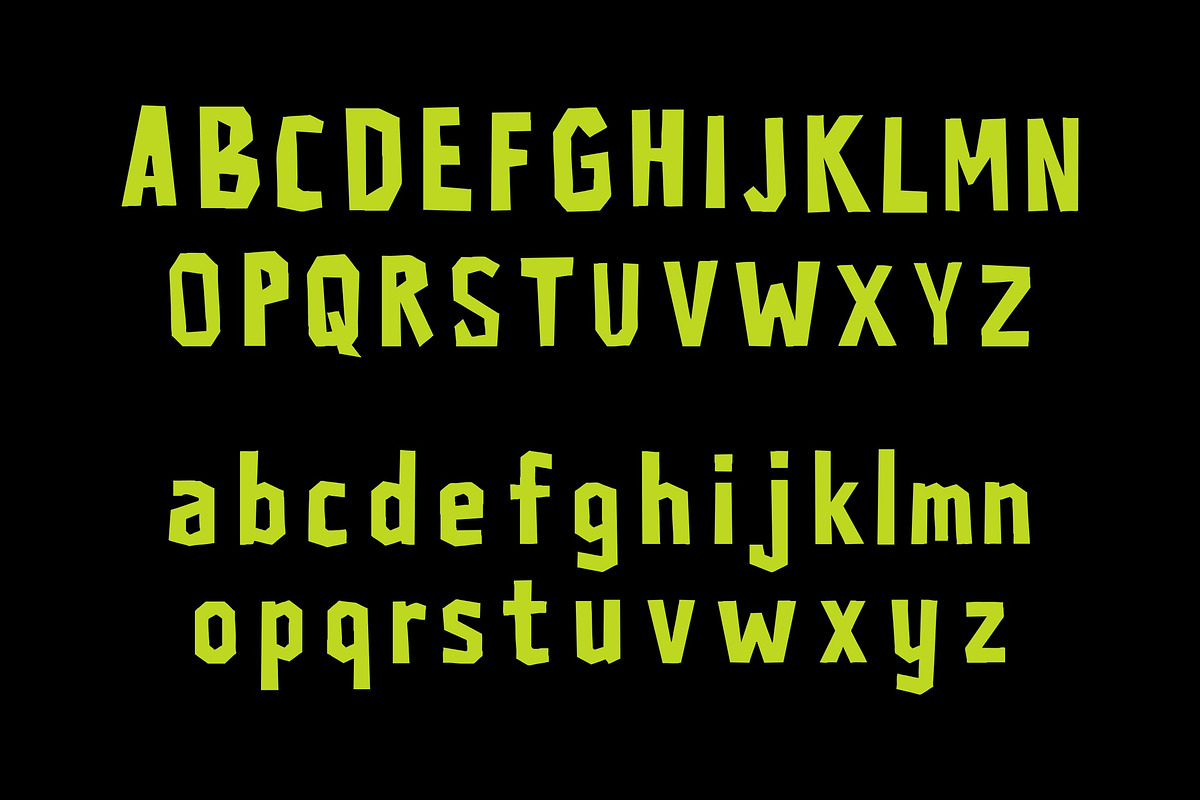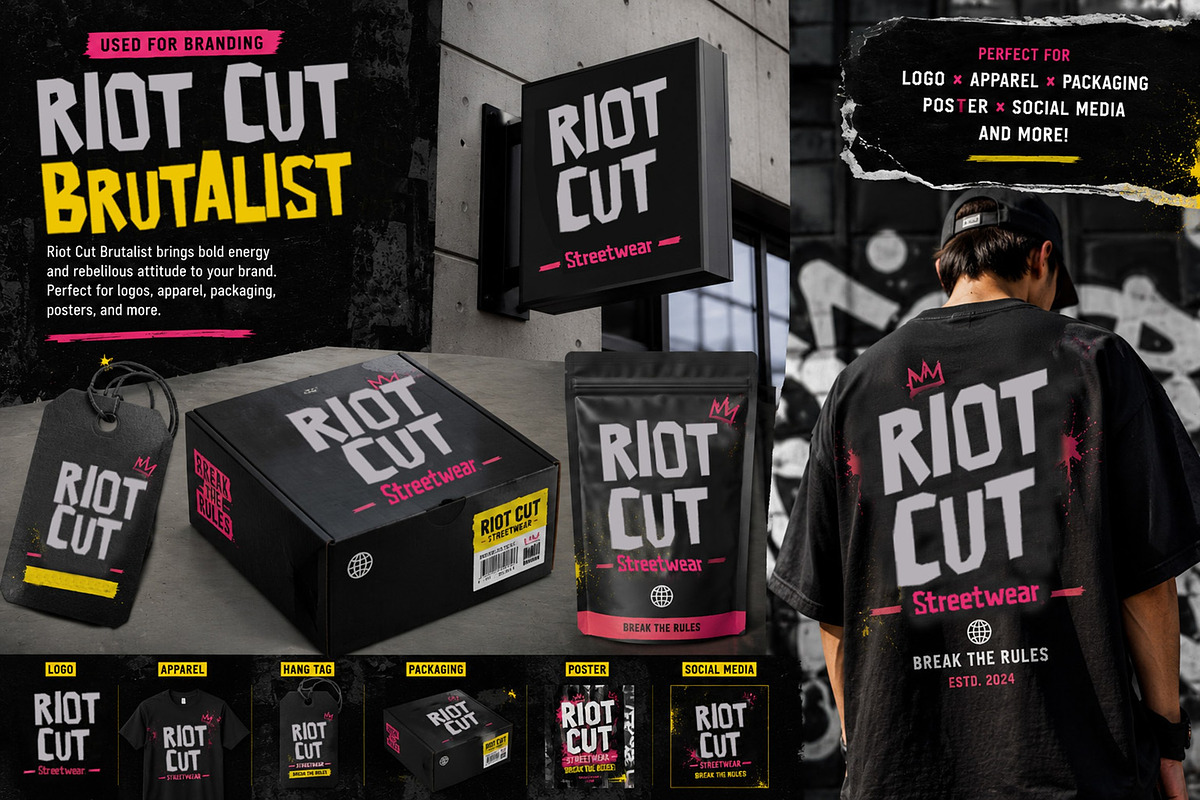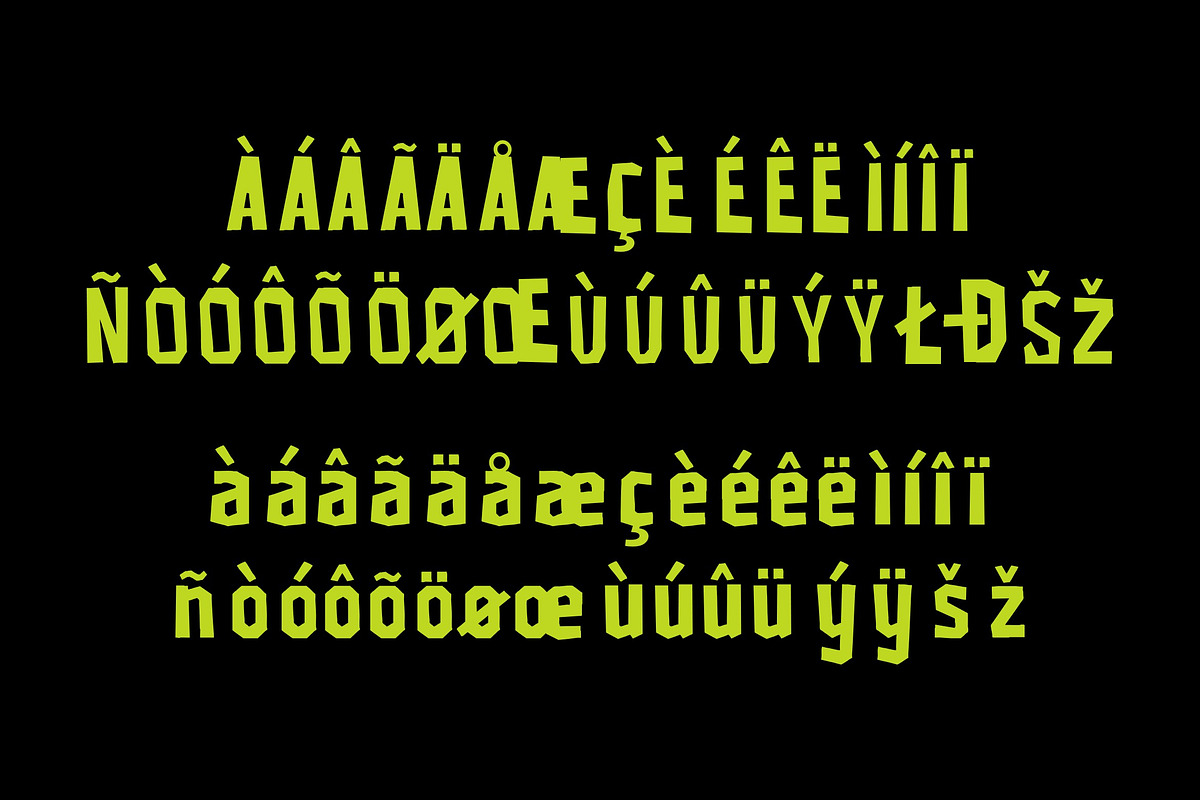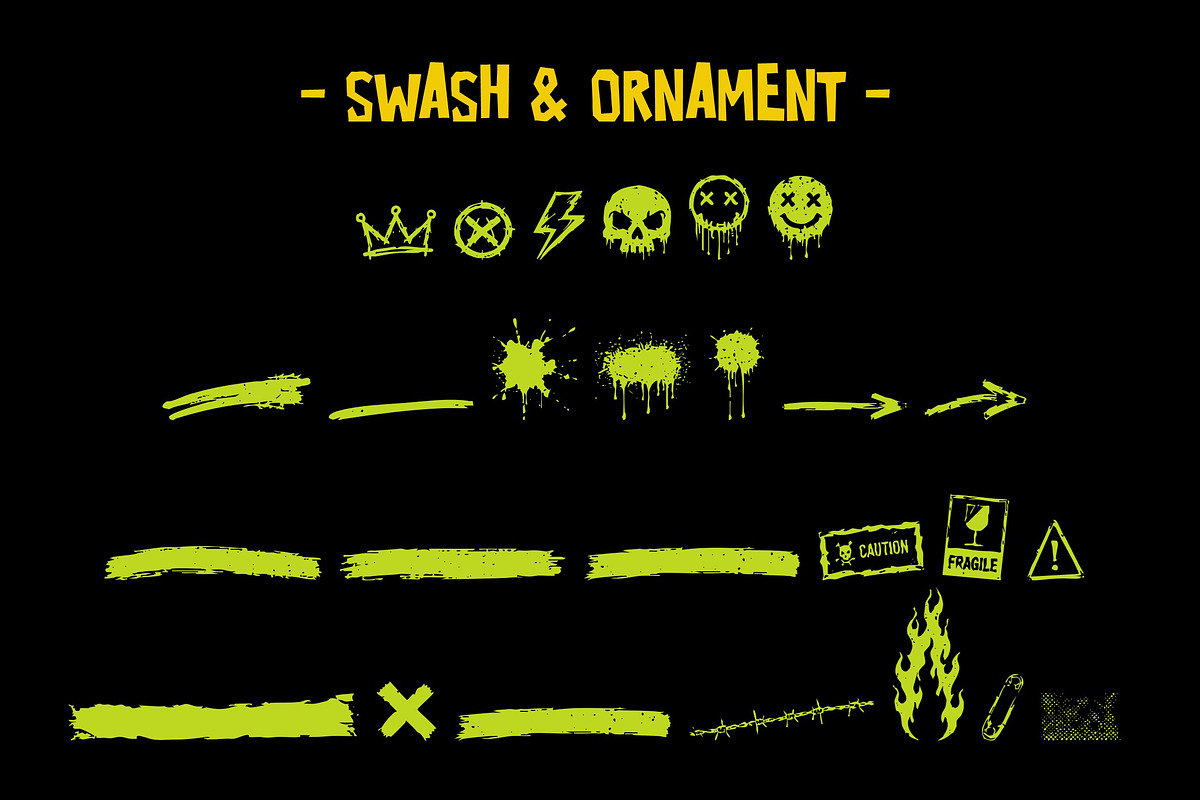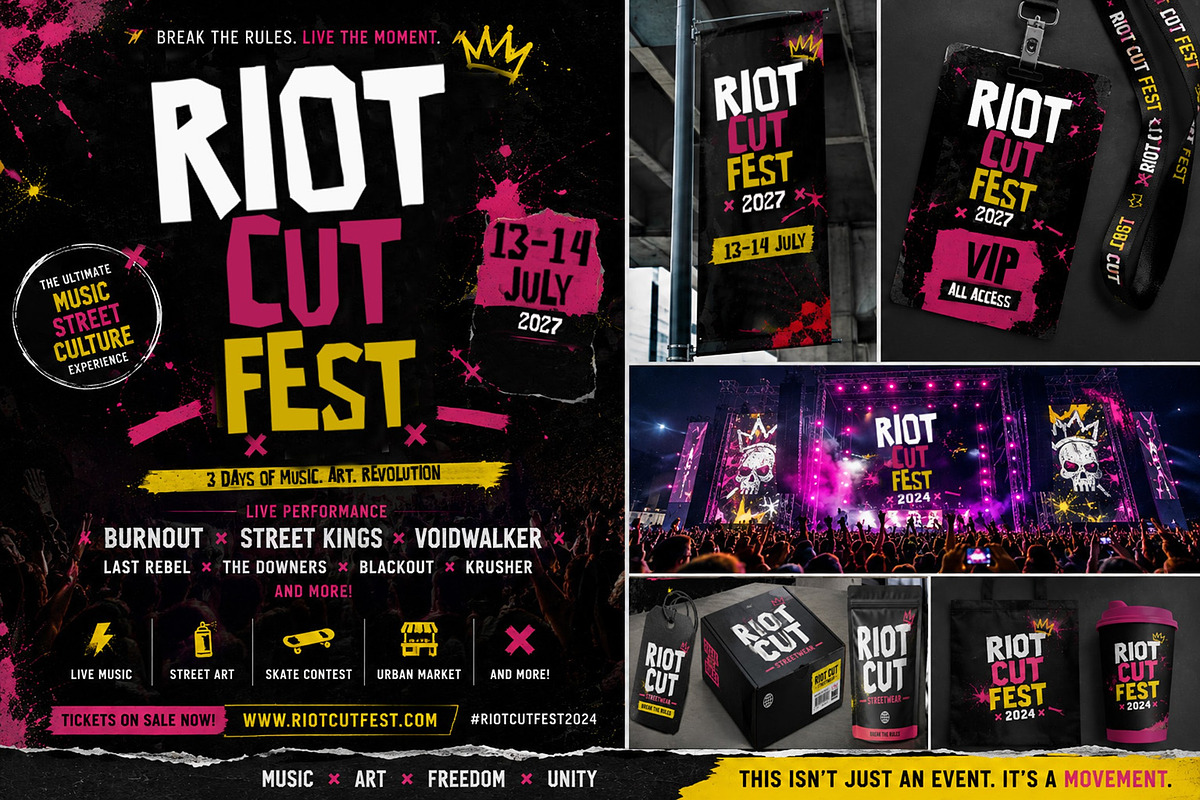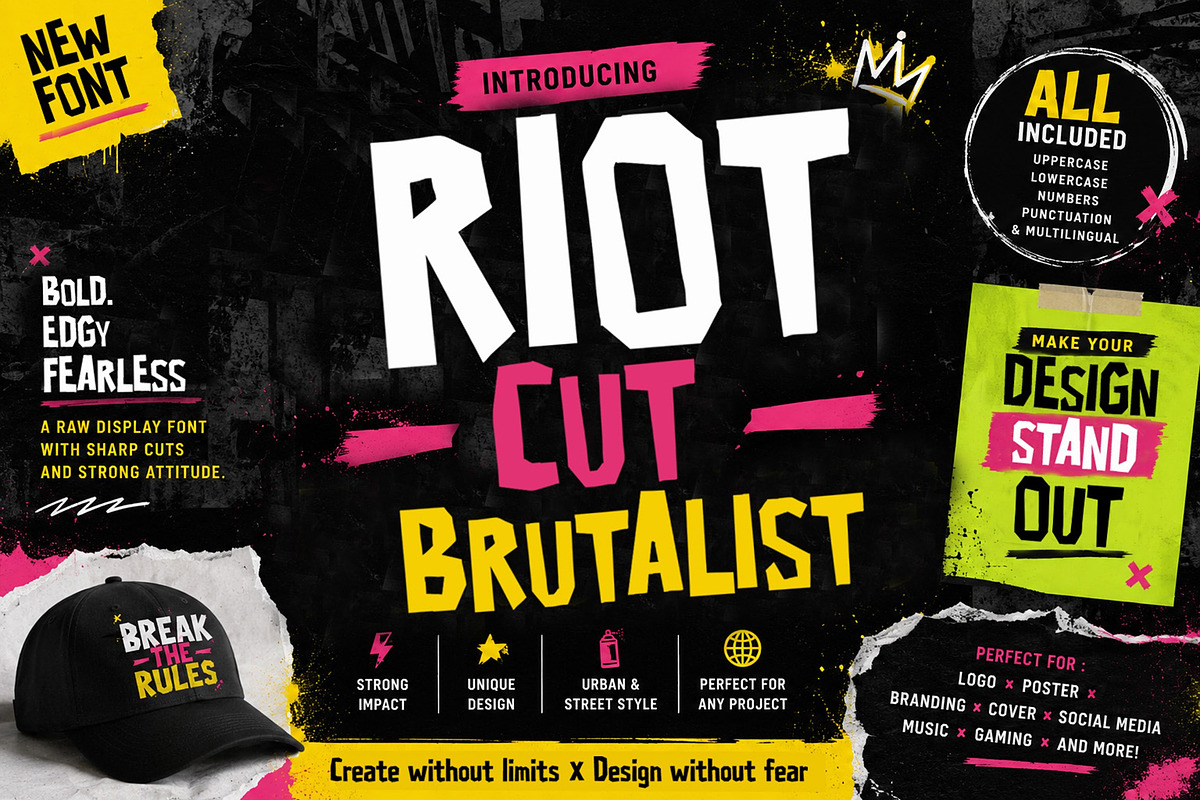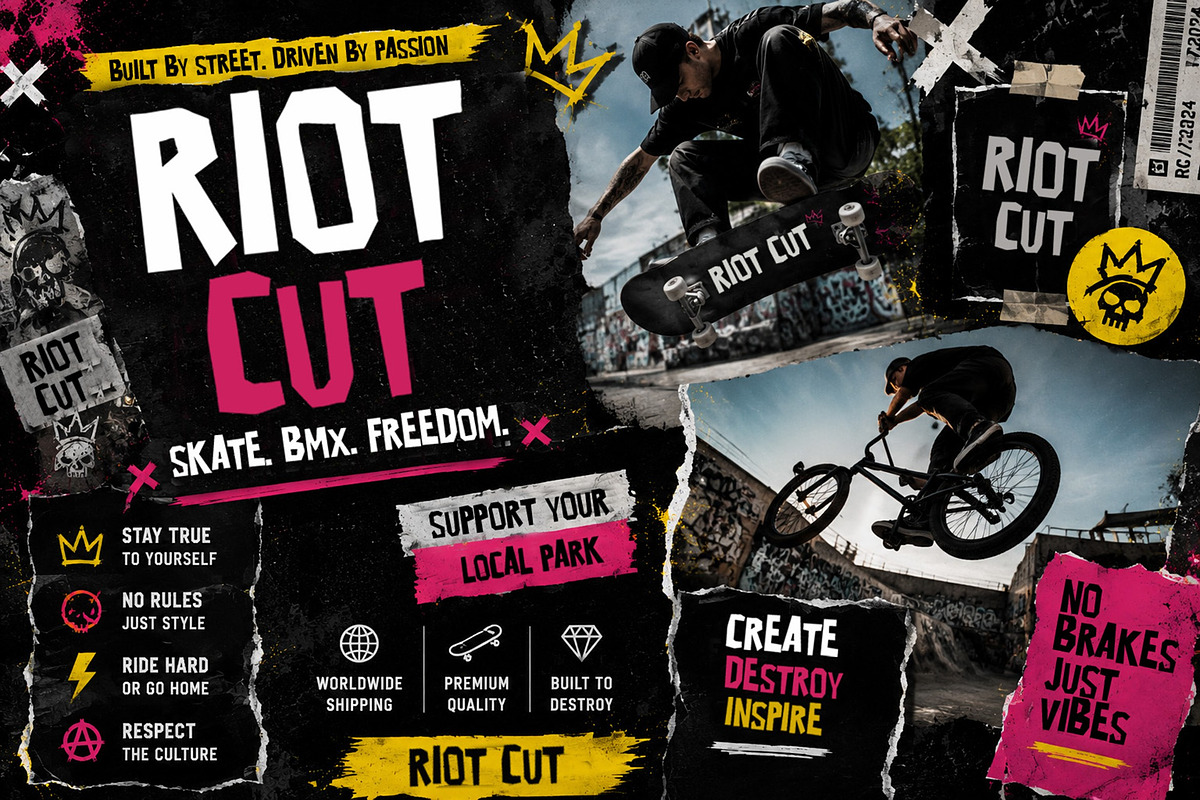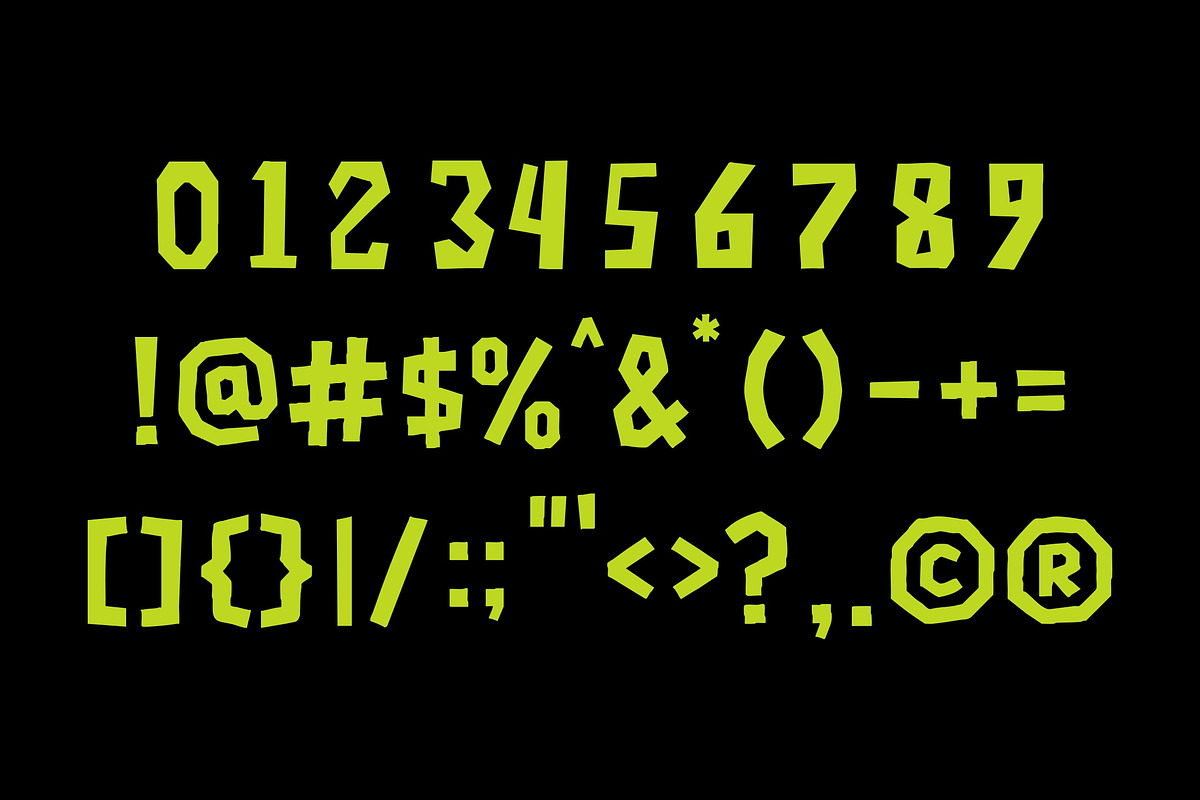
Riot Cut Brutalist
Riot Cut Brutalist is a bold display typeface with sharp, angular cuts and a raw handcrafted feel. Inspired by brutalist design and urban street aesthetics, this font delivers strong visual impact while maintaining clean readability.
Perfect for branding, music posters, gaming visuals, and bold graphic layouts, Riot Cut Brutalist brings a rebellious and modern edge to your designs.